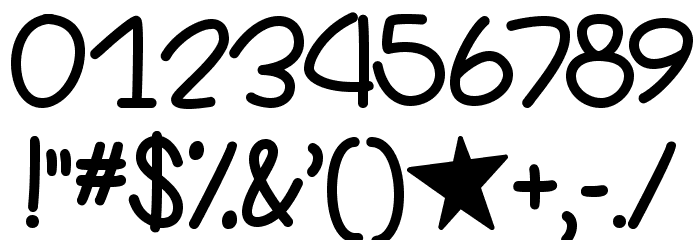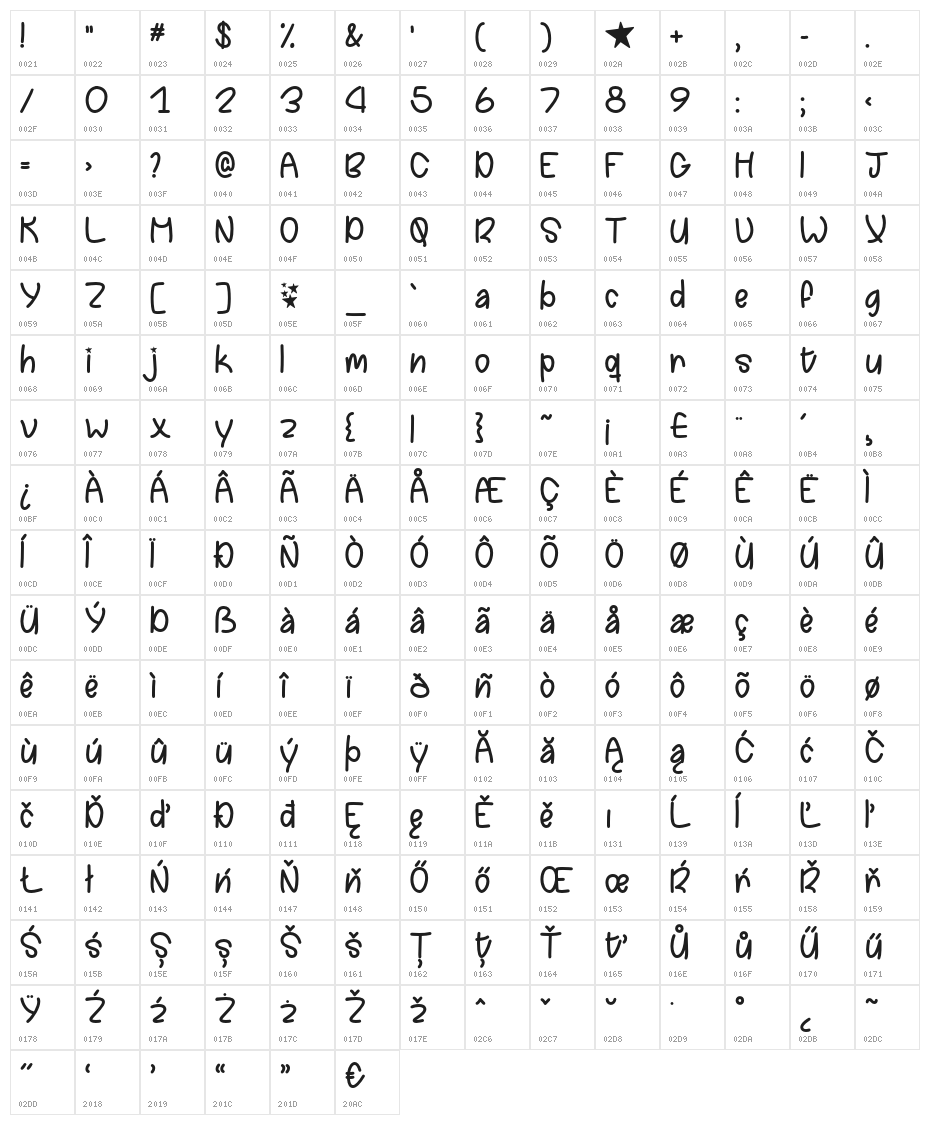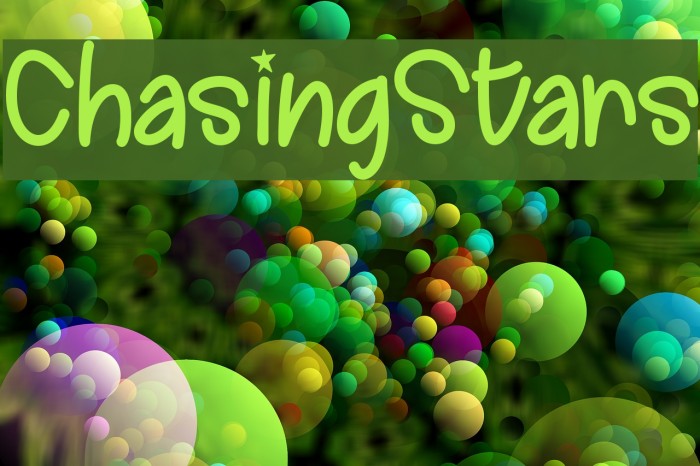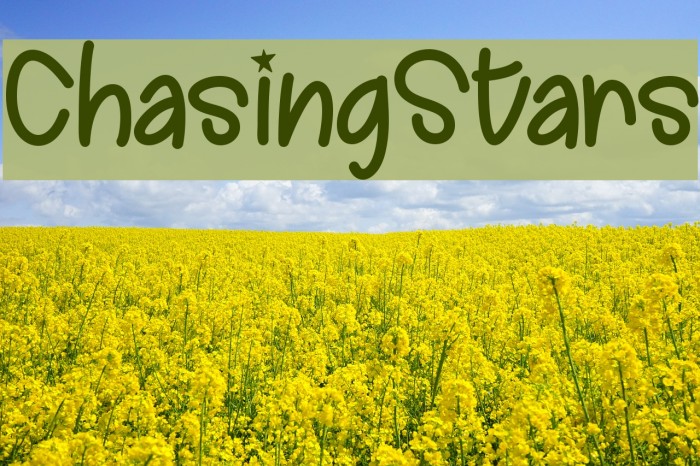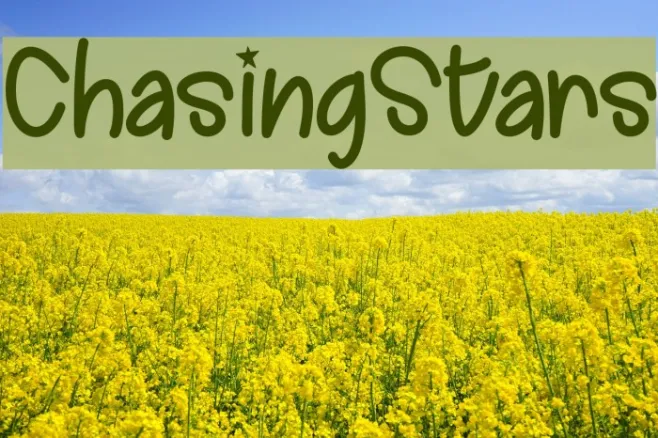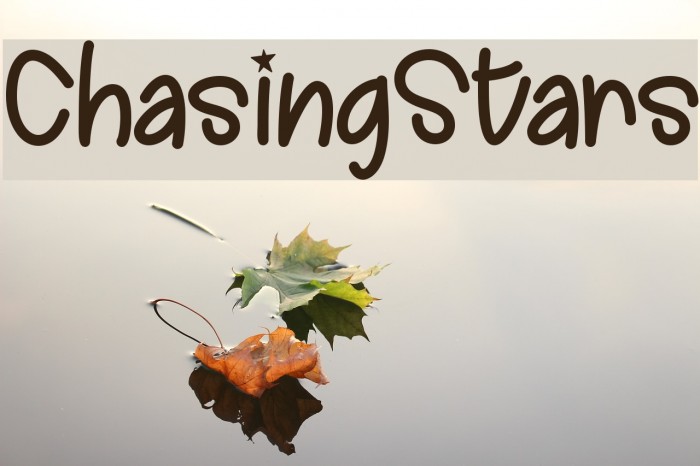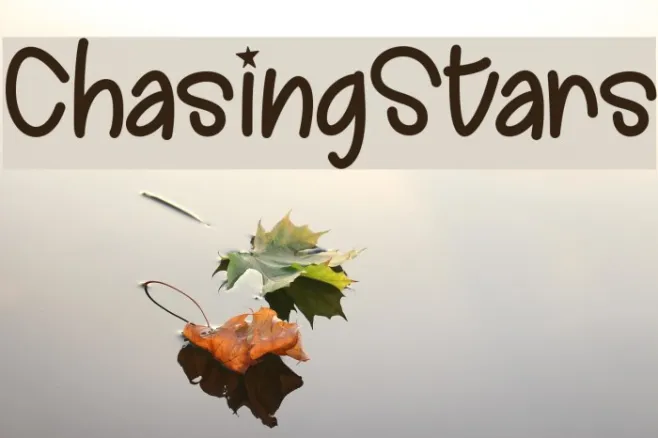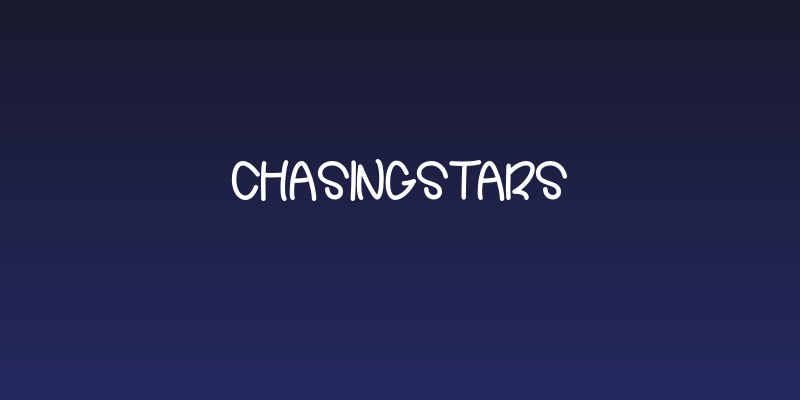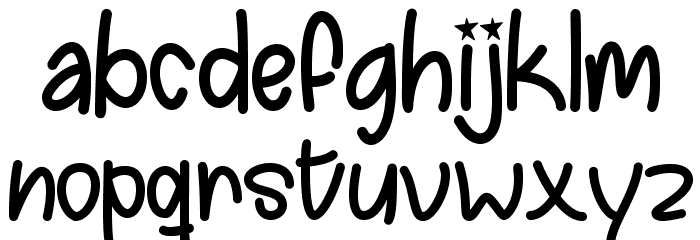
ChasingStars Font
ChasingStars Description
This playful and whimsical font features a handwritten style with a casual and friendly appearance. The letters are rounded and slightly irregular, giving it a charming, informal look. The uppercase and lowercase letters are distinct, with the lowercase 'i' and 'j' adorned with star-like dots, adding a unique touch. The numerals are consistent with the overall style, maintaining the same playful character. Special characters are included, such as punctuation and symbols, which are designed to match the font's lively aesthetic. This font is ideal for projects that require a fun and approachable feel.
| Proposed Projects | Ideal for children's books, greeting cards, playful branding, and casual invitations. |